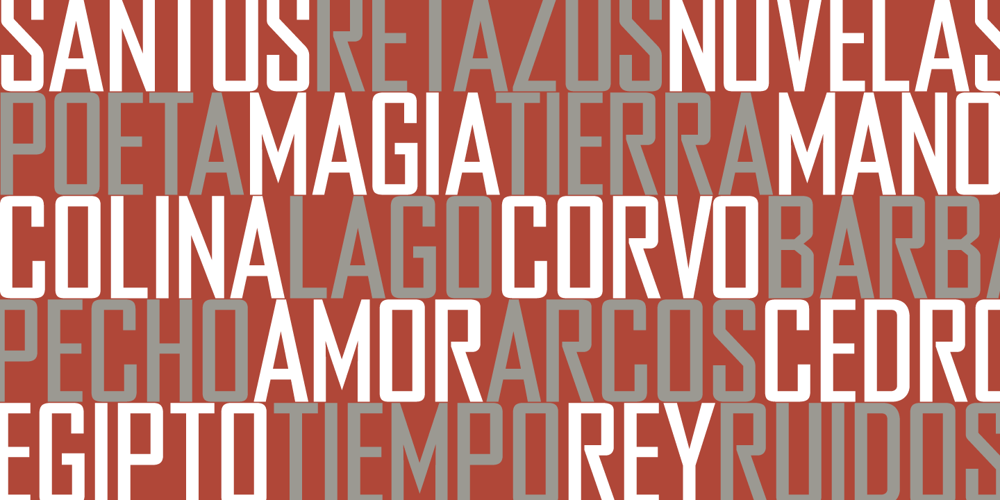
Agency Gothic CT
Agency Gothic CT font
Agency Gothic CT Font Family was designed by Jason Castle and published by CastleType. Agency Gothic CT contains 6 styles and family package options. Originally designed by American type designer Morris Fuller Benton in 1933, Agency Gothic is a wonderful, narrow, squarish art deco typeface. I was commissioned by Publish magazine to create digital versions of Agency Gothic Open and Agency Gothic Condensed for a redesign in 1990. Since then, I have added four other styles. Agency Gothic CT is uppercase only and supports most European languages that use the Latin or Cyrillic alphabets. The Agency Gothic CT family is available in six weights/styles: Light, Medium, Bold, Condensed, Inline, and Open.